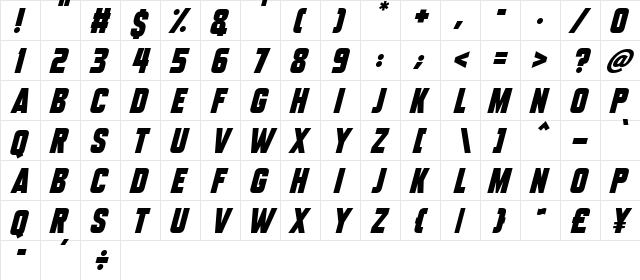
Tech Headlines Italic
Design Context for Tech Headlines Typeface
Tech Headlines has a distinctly futuristic character, with geometric precision and clean angles that feel at home in technology, gaming, and sci-fi contexts. The dynamic lean of this cut emphasises speed and emphasis in any layout.